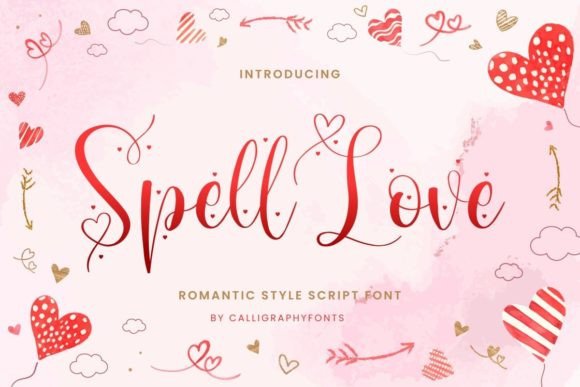
Embrace the captivating aura of Spell Love Font, a mesmerizing calligraphy font that spells love in every letter. This enchanting script family, meticulously crafted by CalligraphyFonts, features a unique heart symbol gracing each letter, adding a touch of romance and whimsy to your creative endeavors.
Unleash your imagination and let Spell Love Font elevate your projects to new heights. Create captivating phone applications, design logos that resonate with your audience, craft heartfelt greeting cards and invitations, or add a personal touch to labels, letterheads, and printed designs. The possibilities are endless with this versatile font.
Explore the diverse applications of Spell Love Font across various industries. Whether you're an author seeking to captivate readers, a boutique owner aiming to create a lasting impression, or a photographer capturing life's special moments, this font will add a touch of magic to your work.
With Spell Love Font, you'll discover a font that's not just visually appealing but also easy to read. Carefully crafted to ensure a flawless look, this font enhances the aesthetics of any design while maintaining readability.
Spell Love Font is your perfect companion for projects related to love, celebrations, and gifts. Celebrate life's special moments with this enchanting font, whether it's a wedding, anniversary, or a simple gesture of appreciation.